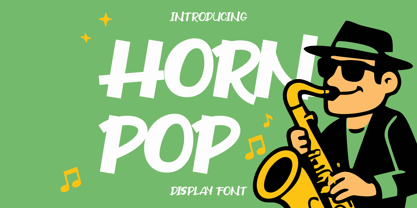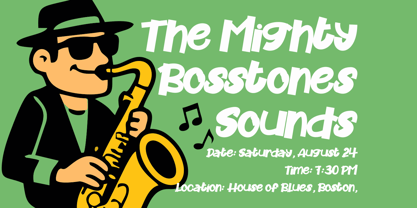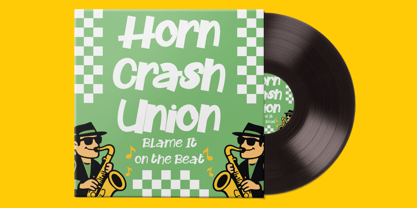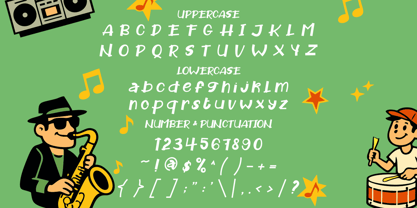
Horn Pop
by Shanaf
The Horn Pop Font Family was designed by Yesie Erma Yunita and published by Shanaf. Horn Pop contains 2 styles and family package options. More about this family
Horn Pop Display Font delivers a bold handwritten style with energetic and irregular letterforms. The strokes appear thick with slightly uneven weight, creating a dynamic and expressive rhythm. Each character leans subtly, giving a sense of motion and spontaneity across words. The baseline feels loose, producing a playful bounce that enhances visual flow. Terminals are soft and rounded, while some edges remain slightly rough for a casual feel. Ascenders rise moderately high, and descenders extend with relaxed curves. Letter spacing is compact, helping words stay cohesive in bold compositions. The overall structure blends casual handwriting with display strength, making it suitable for attention-grabbing typography. This font works well for branding projects related to music, entertainment, and creative industries. It fits logo design for bands, music events, and recording labels. The expressive shapes support posters, album titles, and promotional headlines. It performs effectively in advertising layouts, signage, and social media graphics. Designers can use it for event flyers, invitations, and bold quote designs. It also suits book covers, magazine titles, and sticker concepts with a lively tone. Horn Pop Display Font helps create engaging brand visuals that feel energetic, youthful, and full of character.
Designers: Yesie Erma Yunita
Foundry: Shanaf